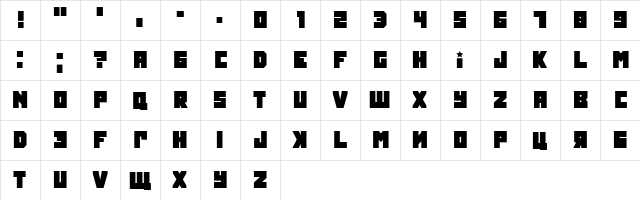
Tokarev Regular
Design Context for Tokarev Typeface
Tokarev is a composed and adaptable typeface that performs quietly and consistently across a wide range of design contexts.
Pro Tip: Use Tokarev in both headline and body roles to test its range before committing to a single application.